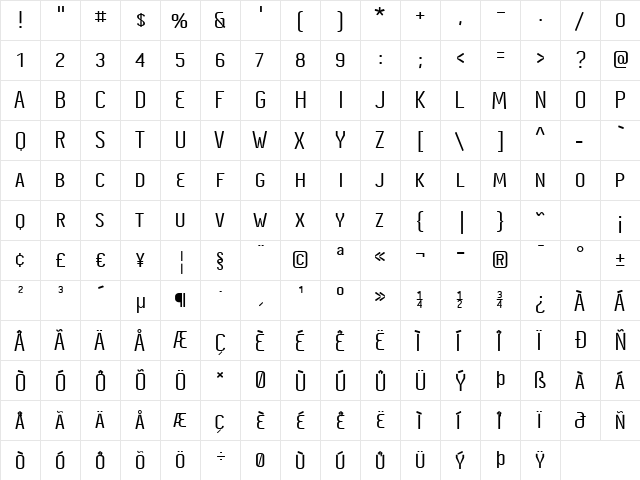
Cynapse Pro SC Bold
Design Context for Cynapse Pro SC Typeface
Cynapse Pro SC is a composed and adaptable typeface that performs quietly and consistently across a wide range of design contexts. Its bold stroke weight gives it real presence on the page.